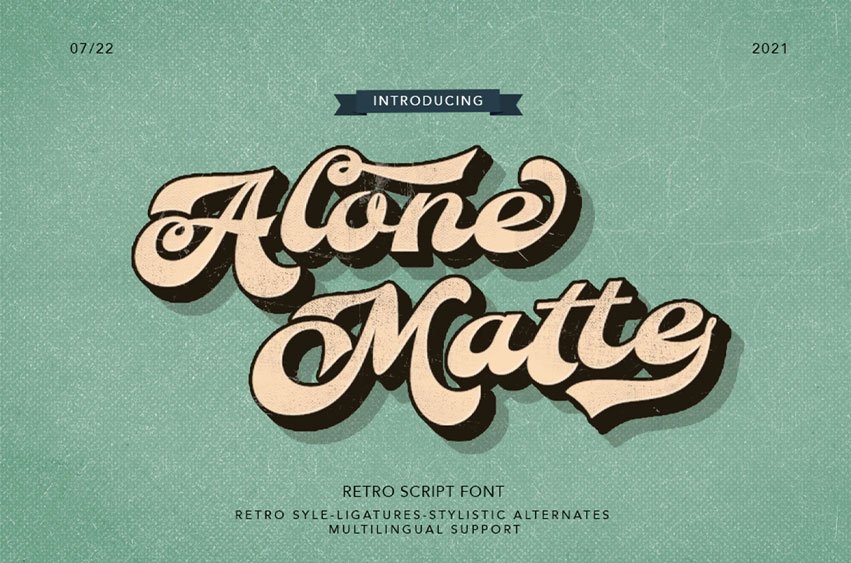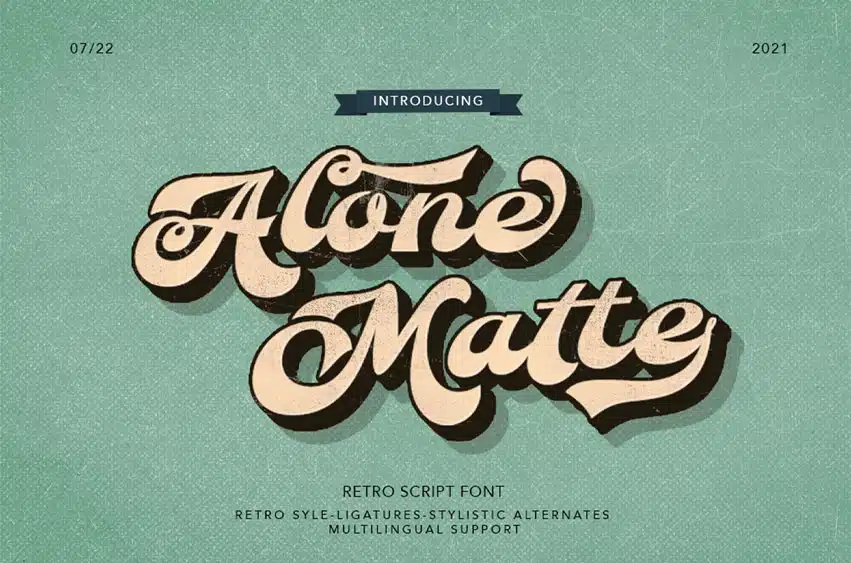
Alone Matte Font is inspired by the design styles of the 70s. The style is groovy, classic, not serious but has aesthetic and unique value, besides that the Alone Mate font is very easy to remember and becomes the image of a design.
Alone Mate is very good for being your font collection because this font is very unique and easy to apply to any media that has a design concept that is not so serious, groovy, classic, funny and unique.
- Stylistic Alternates